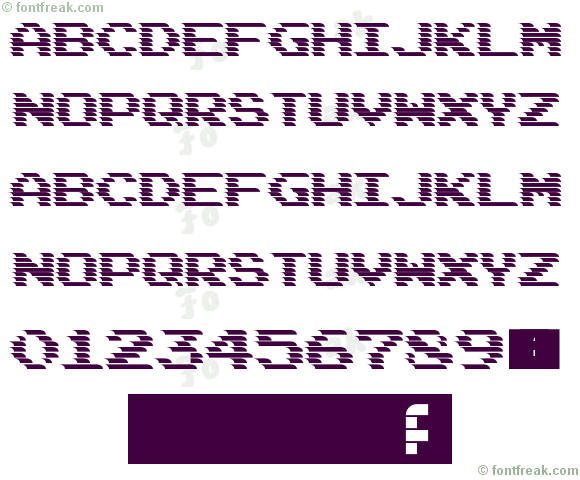
DEADCRT Regular
About DEADCRT Regular
DEADCRT Regular by Andrew McCluskey is a striking display font that falls into the category of decorative typefaces. This unique font features a bold, pixelated design reminiscent of early computer graphics, making it an ideal choice for projects that seek to evoke a retro or technological aesthetic. The font showcases a medium stroke weight with minimal contrast, allowing for strong visibility while maintaining a distinctive style. Its character spacing is tight, which contributes to the cohesive and impactful appearance of the text, while the decorative elements create a sense of dynamism and energy.
One of the best use cases for DEADCRT Regular is in the realm of digital art and graphic design, where its retro vibe can enhance video game graphics or tech-themed posters. It also works exceptionally well for movie posters, particularly in genres like sci-fi or horror, where a bold and unconventional typeface can grab attention. Small business owners in the gaming or tech industry may find this font ideal for branding materials, logos, and promotional content. Additionally, content creators looking to add a unique touch to their online presence—such as in social media graphics or YouTube thumbnails—will benefit from its distinctive look.
What sets DEADCRT Regular apart is its ability to seamlessly blend nostalgia with modern design elements. This font not only stands out visually but also carries a sense of personality that can elevate any project, making it a valuable addition to any designer’s toolkit.